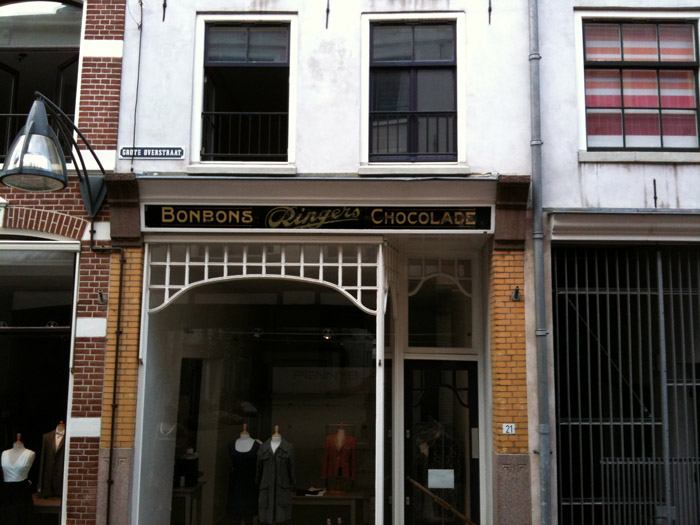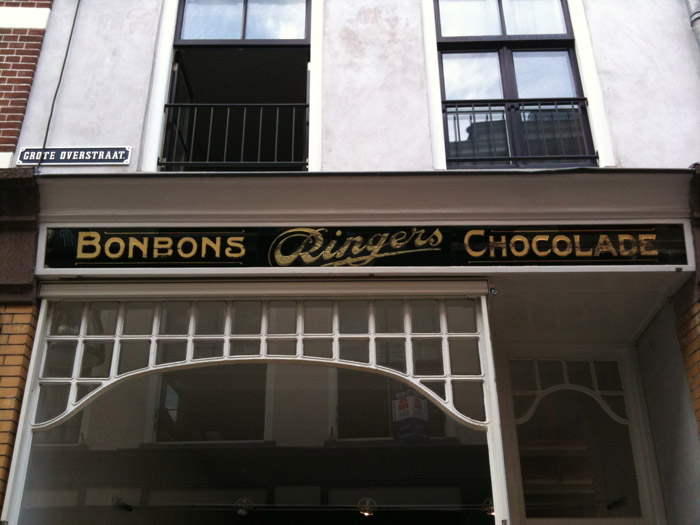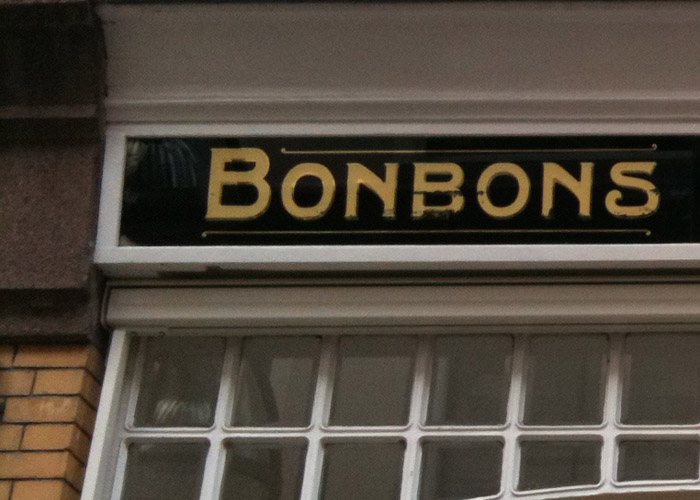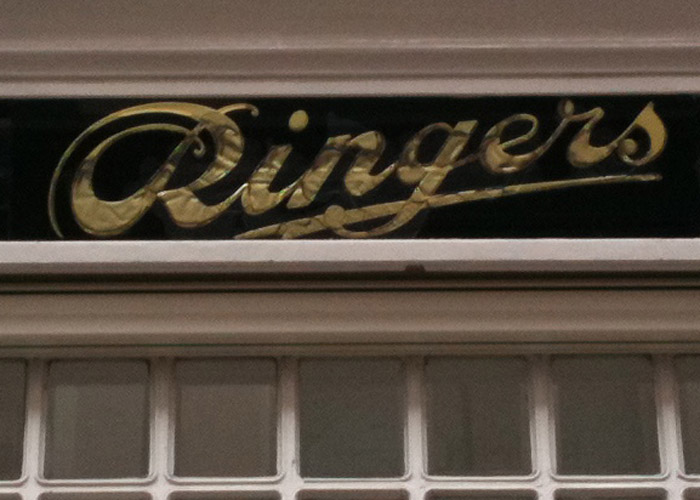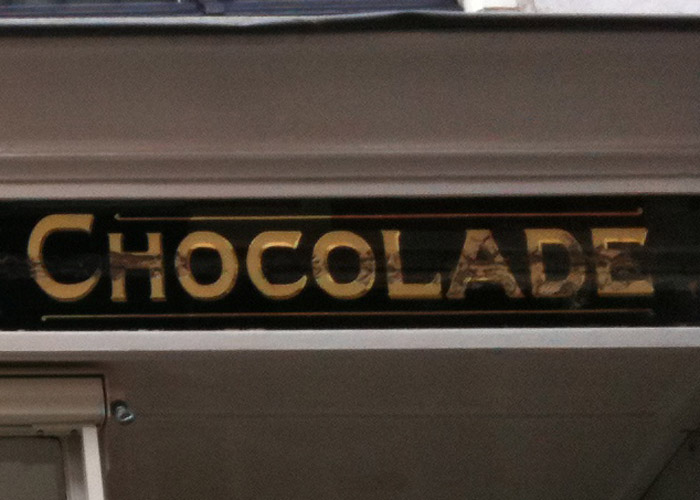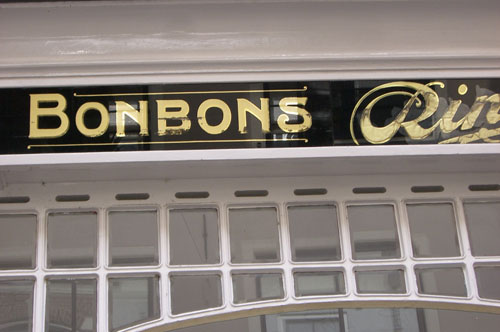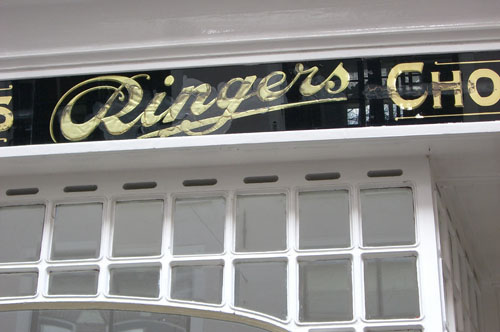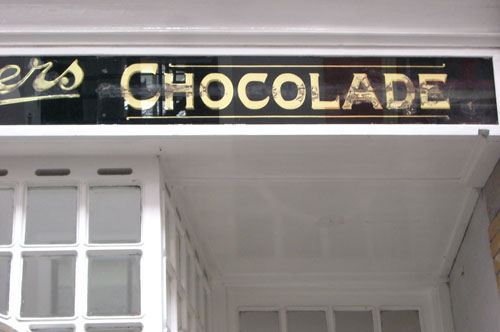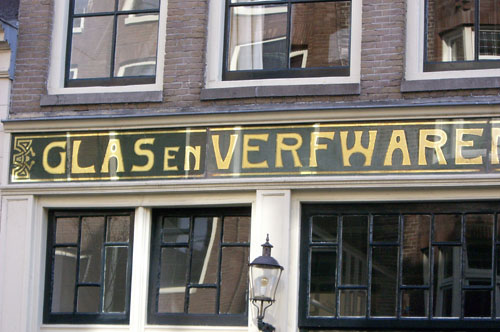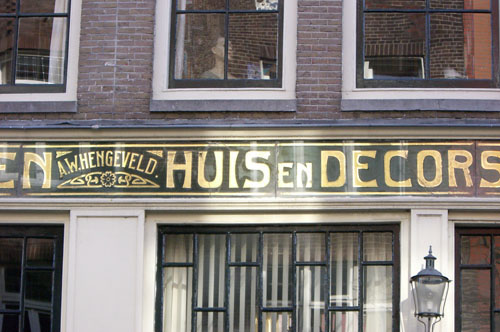
Chocolate Shop in Deventer Netherlands
A nice shopfront in the old Hanse (trade) city of Deventer in the Netherlands.
It used to be a Chocolate shop, but now, as you can see, a clothes shop.
Thankfully the owner appreciates the quality work and did not remove the glasswork.
The word "Ringers" appears to be a different colour to the other words. Also, I'm trying to work out how they have achieved the shade effect. Both the main letter and the shade seem to be bright (mirror) finish. Maybe it's just a trick of the camera. Is the shade a matt finish?
As soon as you see it, it's obviously European. This made me wonder why. Why it's different to the work in Australia.
After thinking about that, I realize why (apart from the obvious spelling difference of chocolate).
First, the panel is angled. I can't recall ever seeing a glass panel on an angle like this. Also, the shopfronts here may have nice signs on transom glass, but they are upper sections of the display windows. This one is actually a facade to the structural transom. Very rare here.
Secondly. the beautiful lattice-like treatment of the upper window panels. I haven't seen that here either.
All the letters have a mat gilded center and a bright mirror outline and shade.
I believe both effects are done in the same shade of gold.
In England a lot of shopfronts are placed on an angle and when working with glass this gives an extra nice effect.
Could it be that they angle the signs downward because the shop itself is raised up off of street level due to water levels?
Maybe also by angling them downward, there is less bright "sky" reflected on the front glass surface which outshines the gold letters.
PS: there were also "Ringers" chocolate tins amongst others on display at the Trade Museum in Deventer.
The sky light should be the reason Pat.
And if I recollect, you saw this sign when we where traveling through Nederland.
Yes, we both took photos of the sign and in looking at my photos, I actually took mine at a closer range which shows the gold details as matte with bright outlines as you said.
There is just so much happening in the reflection, especially in "ringers", it didn't look to me like the letters are matt finish.
Reflections can work for or against a sign, that's for sure. I did a small job a few weeks ago. Black outline/Bright outer/matt centre. Fairly standard combination. It was high on the glass and the white underside of the overhanging veranda reflected in it. From most angles, you just couldn't see that it had two finishes...It just looked like a plain gold letter.
Here are some photos of that sign and one other in the same matte center/bright outline style.
Note how the chocolate sign which is angled down, has less reflections on it than the right angle sign on the other building.
The chocolate sign has a black painted background, the other is a dark green color.
Your picture solves the question of the texture in Ringers, though it's been described as matte centers.
I will go to this city this weekend and will take some new snaps to feed your questions.
It looks like the letters are all coming off the glass due to age and damp getting in.
seen this on alott of old signs where the gold peels back, could be just making it look like a reflection, when the gold which was watergilded comes away it usually turns a matt finish over time.